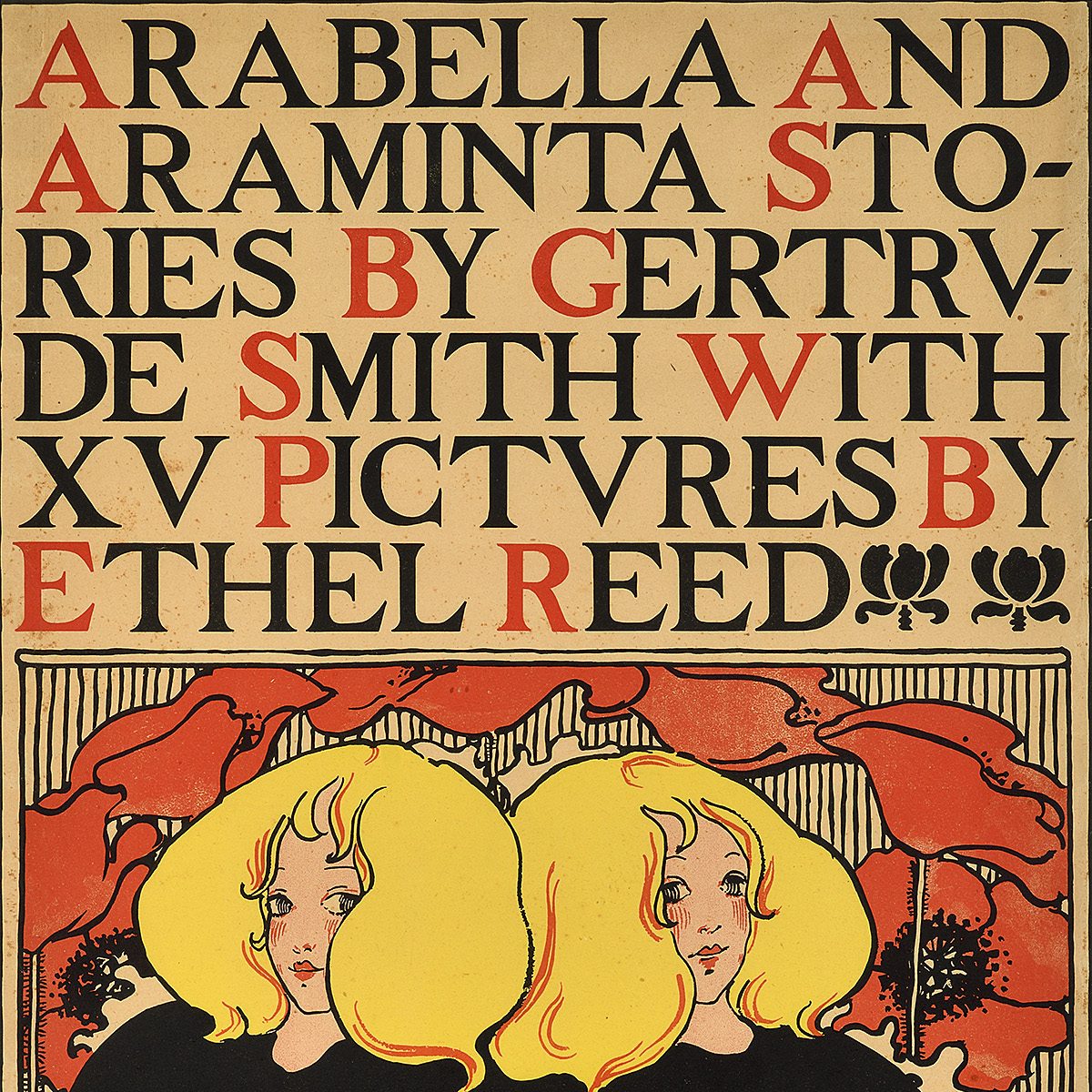
The Victorian Letterforms of Ethel Reed
Explore the Victorian-era hand-lettering featured in Poster House’s latest exhibition Ethel Reed: I Am My Own Property with type historian Patricia Childers. Take a close look at the letterforms this pioneering graphic artist used in her poster designs and the modern typefaces they’ve inspired, and hear about the processes and techniques used to marry the hand-lettering in seamless composition with Reed’s captivating illustrations. Questions about hand-lettering and the evolution of typography are strongly encouraged!